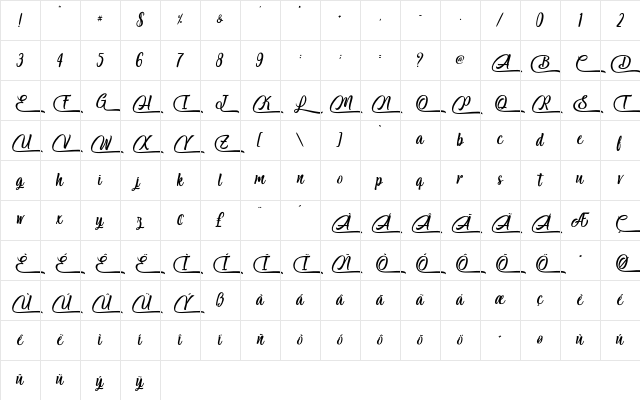
Salmon White - Personal Use Regular Free Font
Salmon White - Personal Use Regular
Foundry: Typhoon Type - Suthi Srisopha
Designer: Typhoon Type - Suthi Srisopha
Design Context for Salmon White - Personal Use
Salmon White - Personal Use is a composed and adaptable typeface that performs quietly and consistently across a wide range of design contexts.